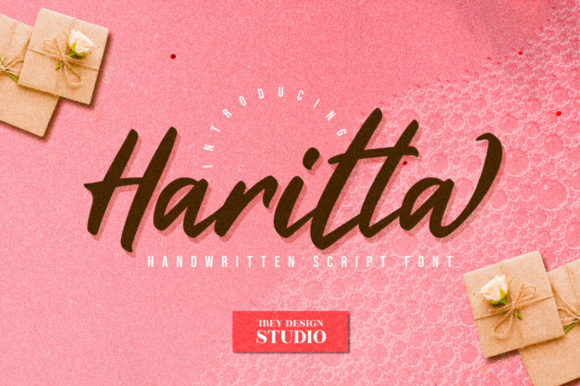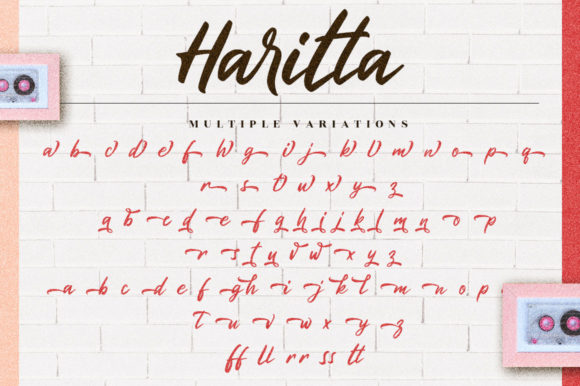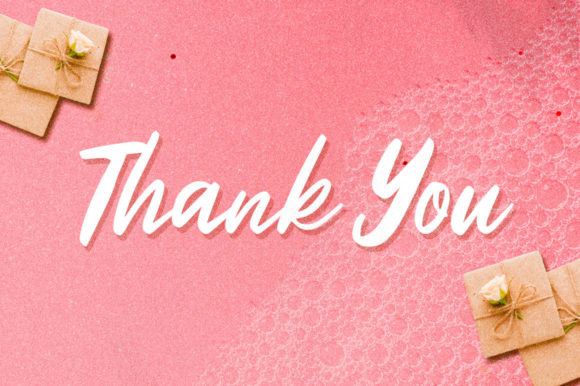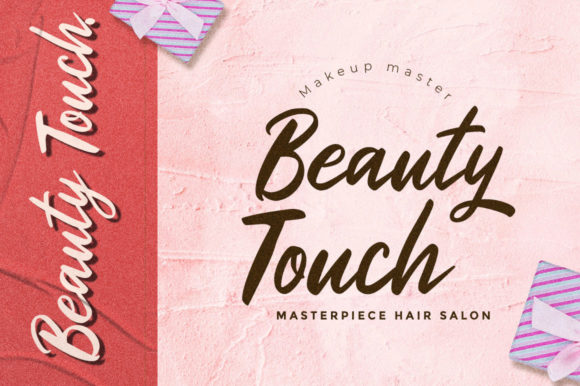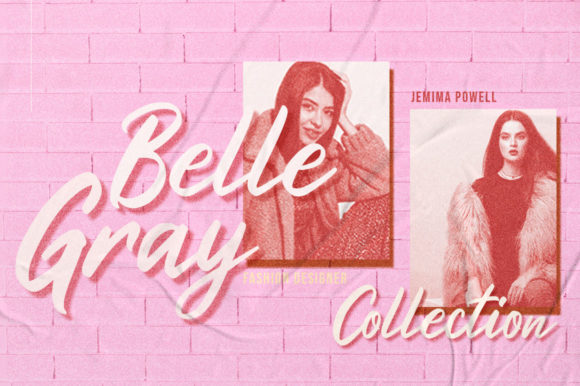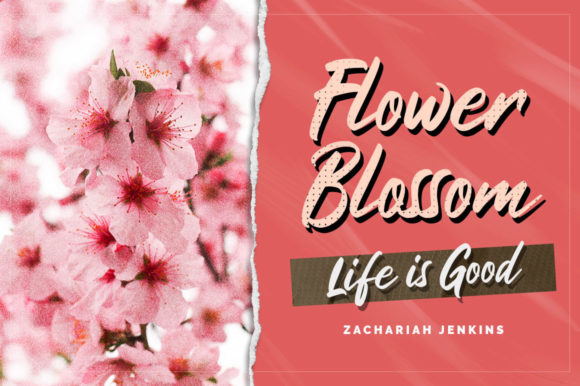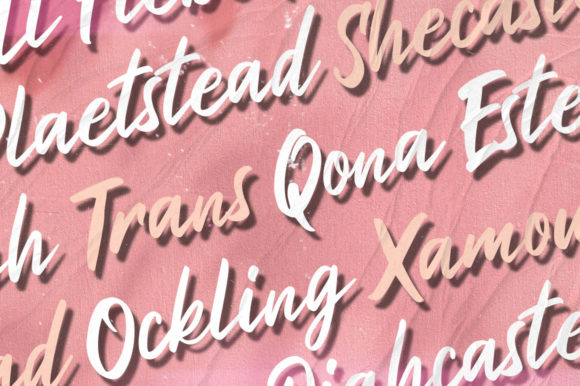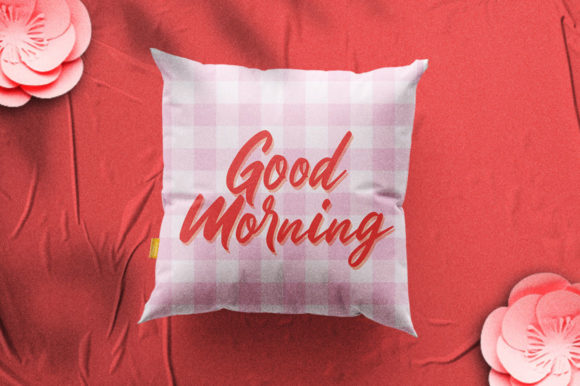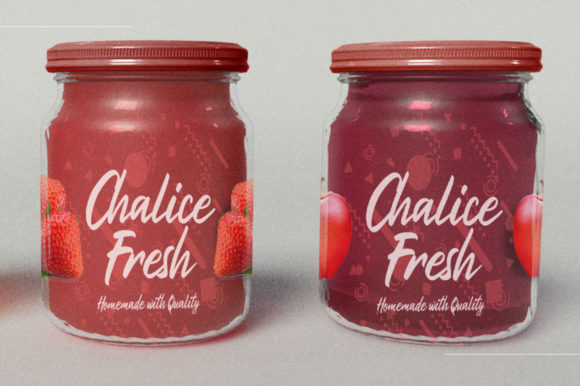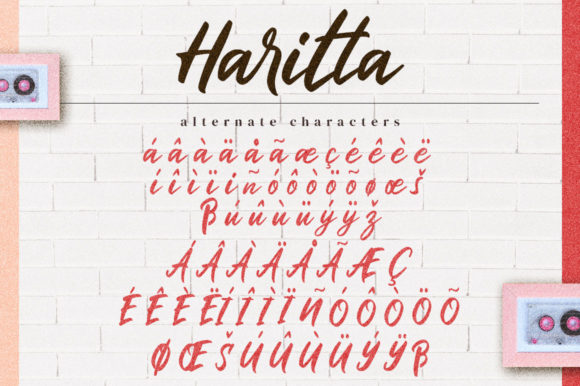
Haritta Script Font
About Haritta Script Font
Haritta Script is a cursive, paint brushed script font, featuring characters that seem to dance along the baseline. Add this font to your most creative ideas, and notice how it makes them stand out!